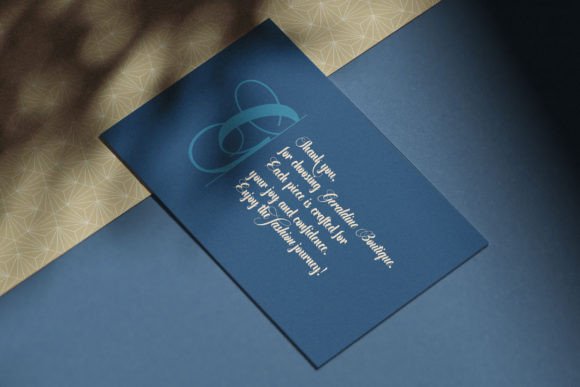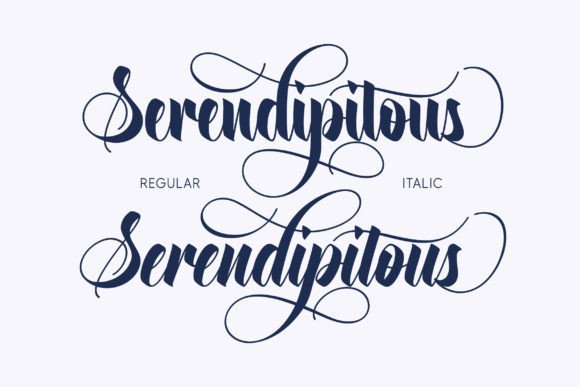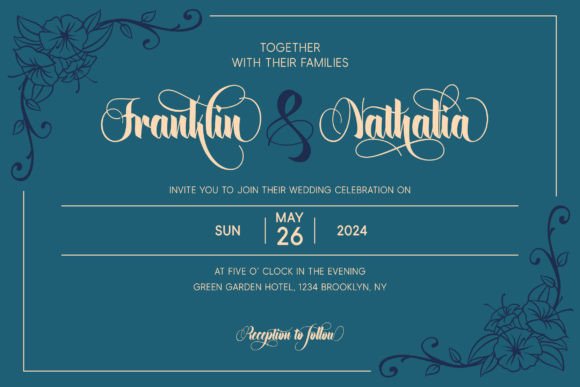
Introduction to Calliform Font
Calliform is a modern script calligraphy font with an elegant classical touch, featuring sharp strokes and carefully designed curves.
Equipped with 70 decorative alternate characters, it is a suitable choice for various design projects such as logos, branding, greeting cards, wedding designs, printing, advertising, packaging, wall decoration, titles, web design, and more .
Why Choose Calliform Font?
Calliform Font offers exceptional quality and versatility, making it a valuable addition to your design toolkit. Whether you’re creating for personal projects or commercial use, Calliform Font delivers professional results.